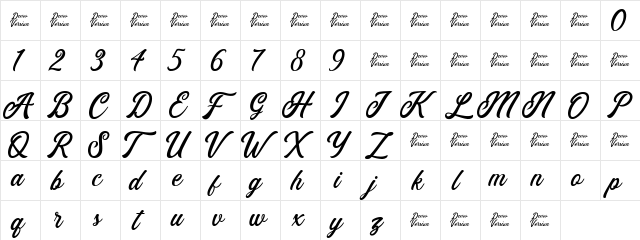
Eusthalia Clean Regular
Design Context for Eusthalia Clean Typeface
Eusthalia Clean is a composed and adaptable typeface that performs quietly and consistently across a wide range of design contexts.